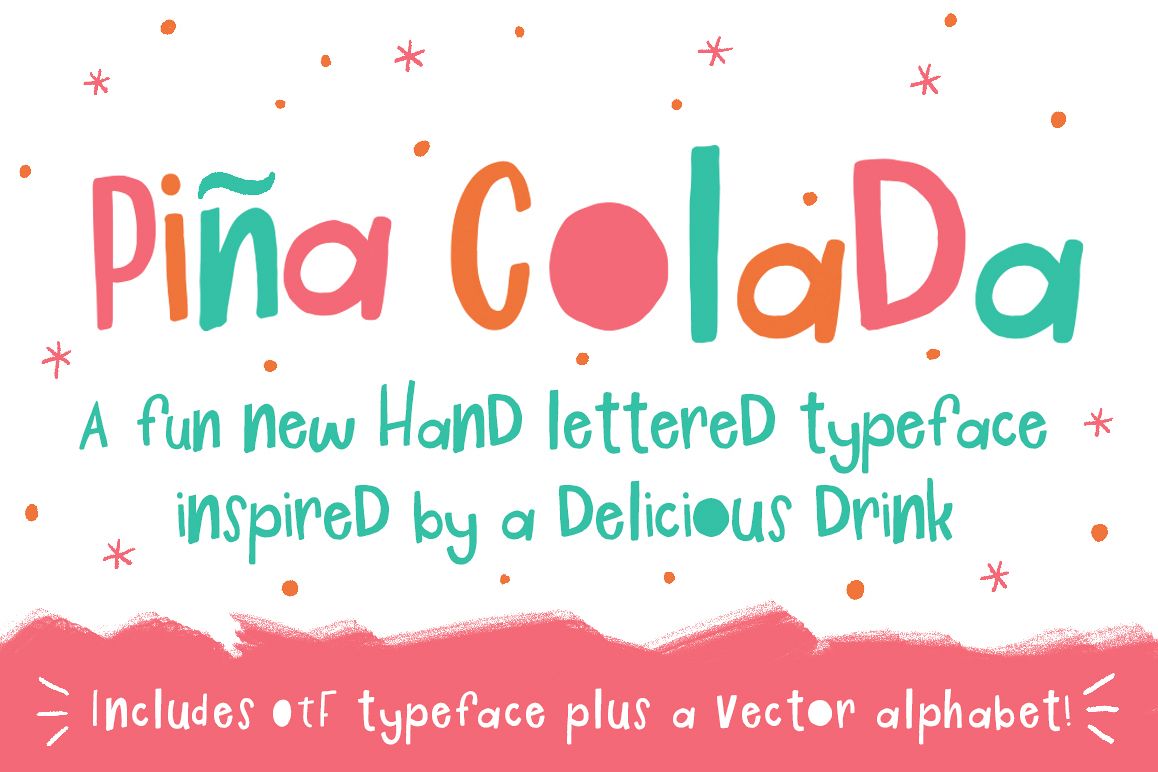
Piña Colada Font
A brand new hand lettered typeface inspired by the best vacation drink! Create prints, cards and packaging that looks hand lettered!
This typeface was hand drawn from scratch and is guaranteed to look like you drew the lettering yourself. Also included with the font is the original vector sheet that it was built from!